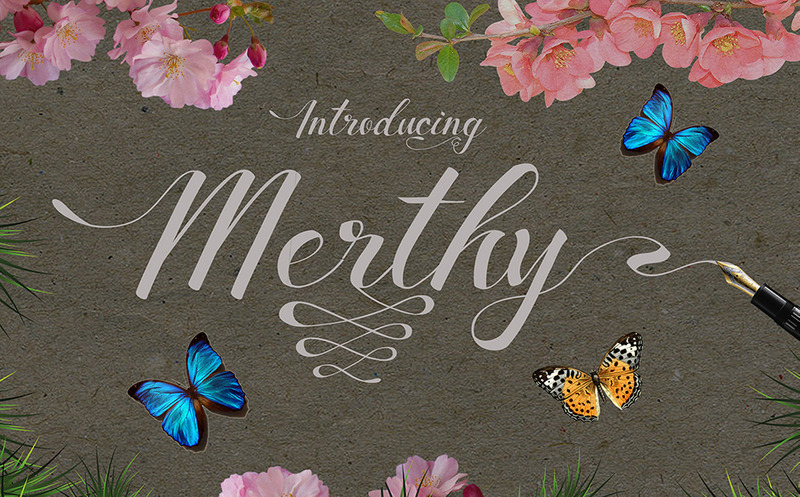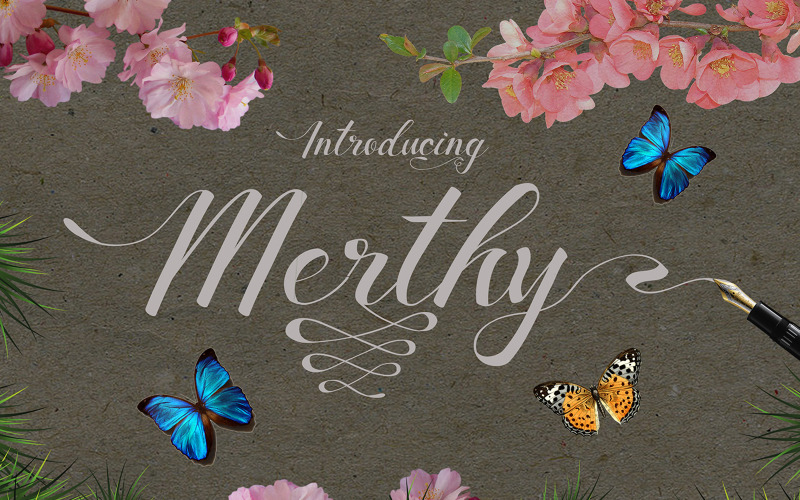
Merthy - Handwritten Script
Introducing Merthy script font with cool character! Merthy come more than 350 glyphs and this perfect for poster design,
Feature
- Uppercase
- Lowercase
- Number & Symbol
- International Glyphs
- Alternative Uppercase
- Alternative Lowercase
- Ligatures